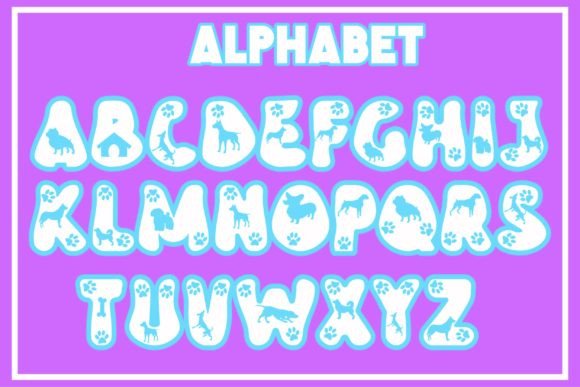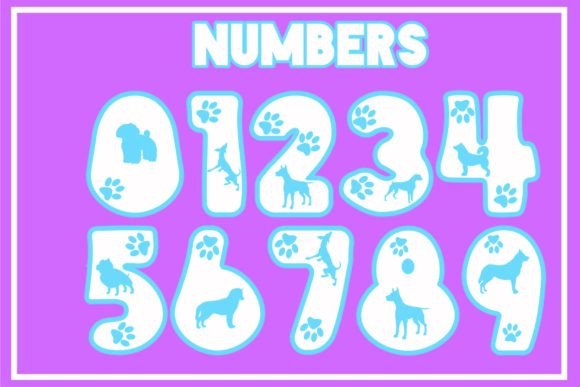
Unleashing Creativity with the Groovy Dog Font
Do you remember the thrill of rummaging through your grandmother’s attic, discovering a dusty box filled with old art supplies and forgotten treasures? The smell of paint, glue, and imagination wafting through the air, sparking a creative journey that would last a lifetime? For designers, this sense of wonder and excitement is what drives us to explore new fonts, styles, and techniques that bring our ideas to life.
Enter the Groovy Dog Font, a bold, cool, and fun decorative font that embodies the spirit of playfulness and authenticity. This font is the perfect choice for any children’s activity or school project, where creativity and self-expression are encouraged. As a designer, the Groovy Dog Font offers a unique opportunity to add a touch of whimsy and personality to your work, making it stand out from the crowd and leaving a lasting impression.
Groovy Dog Font Key Features
- Font Family: Groovy Dog Font, a fun and playful sans-serif font.
- Unique Characteristics: Features a unique blend of rounded and geometric shapes, giving it a modern and quirky feel.
- Character Set: Includes a comprehensive set of characters, including uppercase and lowercase letters, numbers, and punctuation marks.
Groovy Dog Font Review
Overall, I’d say the Groovy Dog Font is a fun and quirky addition to any design project. It’s perfect for anyone looking to add a playful touch to their branding or marketing materials. ✨
- The font is incredibly versatile and can be used in a variety of contexts, from posters to merchandise.
- The unique, hand-drawn style gives it a lot of character and helps it stand out from more generic fonts.
- The Groovy Dog Font is highly customizable, making it easy to adjust the weight, size, and color to fit your design needs.
However, there are a few limitations to keep in mind: ⚠️
- The font may not be suitable for formal or professional projects, as it has a playful and whimsical feel.
- The unique style of the font can make it difficult to read at small sizes or in low-light conditions.
Overall, I think the Groovy Dog Font is a great choice for designers who want to add some personality to their projects. Just be sure to consider the limitations and use it in contexts where it will shine.
Use Groovy Dog Font for creative and playful designs, such as:
Children’s party invitations
Food and beverage branding
Wedding invitations and decorations
To get the most out of Groovy Dog Font, use it in combination with bright colors and fun illustrations.
Alternatives to Groovy Dog Font for Designers
Pacifico is a beautiful, elegant script font that works well for designs that require a touch of sophistication and luxury. It is ideal for wedding invitations, branding, and advertising materials. Pacifico is more refined and elegant compared to Groovy Dog Font, which is more playful and casual.
Great Vibes is a modern script font that is perfect for designs that require a mix of elegance and playfulness. It is ideal for fashion brands, food labels, and packaging materials. Great Vibes is more versatile than Groovy Dog Font, which is more suited for casual and fun designs.
Dancing Script is a lively and energetic script font that works well for designs that require a sense of movement and dynamism. It is ideal for entertainment brands, event invitations, and social media graphics. Dancing Script is more energetic and playful compared to Groovy Dog Font, which is more laid-back and casual.
Alex Brush is a beautiful, handwritten script font that works well for designs that require a touch of warmth and personality. It is ideal for branding, advertising, and editorial materials. Alex Brush is more refined and elegant compared to Groovy Dog Font, which is more playful and casual.